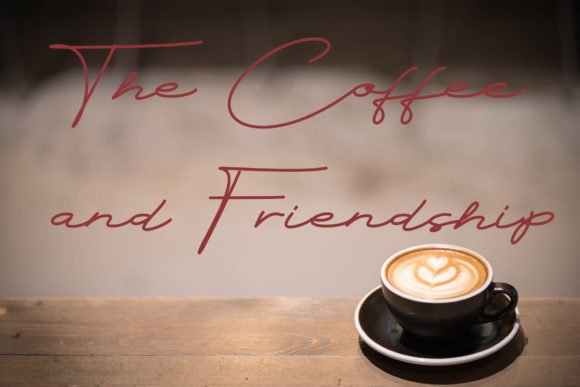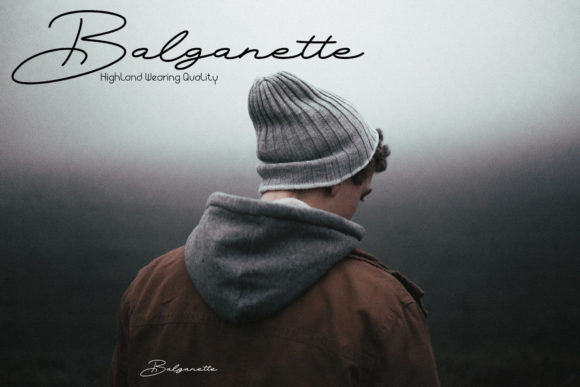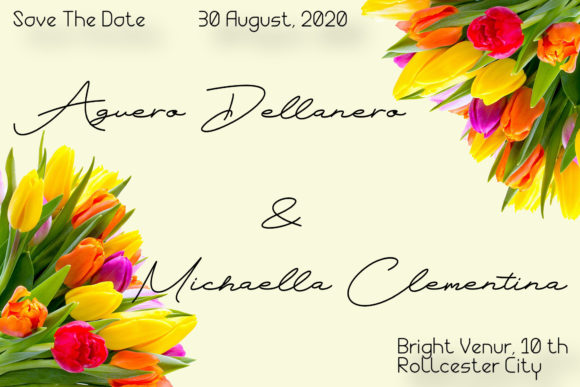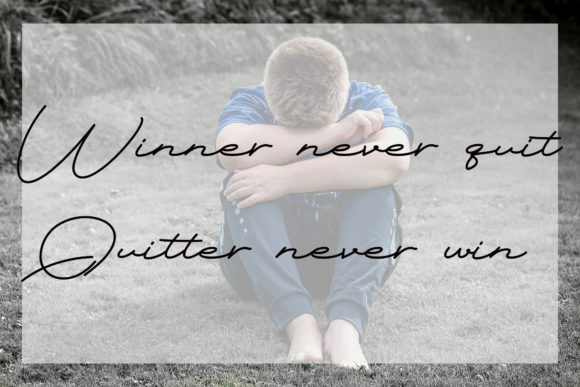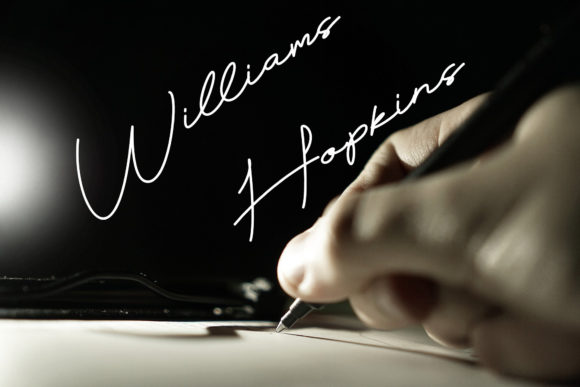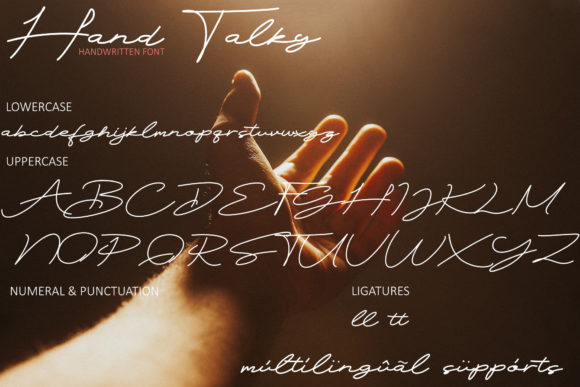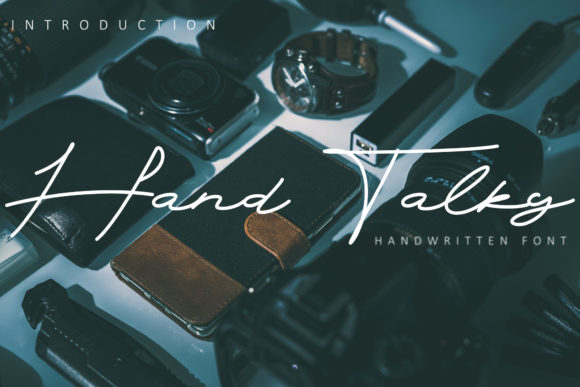
Introducing Hand Talky Font: Elevate Your Designs with Elegance
Are you on the lookout for a font that adds a touch of sophistication and elegance to your projects? Look no further than Hand Talky Font, a beautiful, flowing handwritten font that is sure to capture your heart. With its incredibly distinct and timeless style, Hand Talky Font is perfect for designers and crafters seeking to create spectacular designs that stand out from the crowd.
The Characteristics of Hand Talky Font
Hand Talky Font is described by its elegant touch, which sets it apart from other handwritten fonts. Its flowing lines and curves create a sense of movement and fluidity, making it perfect for projects that require a touch of dynamism. The font’s classic and timeless style ensures that it will remain relevant for years to come, making it a valuable addition to any designer’s font collection.
What Makes Hand Talky Font So Special?
So, what makes Hand Talky Font so special? Here are just a few reasons why designers and crafters are falling in love with this beautiful font:
- Elegant and Sophisticated: Hand Talky Font exudes elegance and sophistication, making it perfect for projects that require a high-end feel.
- Unique and Distinct: The font’s unique and distinct style sets it apart from other handwritten fonts, ensuring that your designs will stand out from the crowd.
- Timeless: Hand Talky Font’s classic style ensures that it will remain relevant for years to come, making it a valuable addition to any designer’s font collection.
- Versatile: The font is versatile and can be used for a wide range of projects, from branding and advertising to packaging and digital design.
How to Use Hand Talky Font in Your Designs
Hand Talky Font is perfect for a wide range of design projects, including:
- Branding and Advertising: Use Hand Talky Font to create elegant and sophisticated branding and advertising materials, such as logos, business cards, and brochures.
- Packaging Design: Add a touch of elegance to your packaging designs with Hand Talky Font, perfect for luxury brands and high-end products.
- Digital Design: Use Hand Talky Font in your digital designs, such as website headers, social media graphics, and email marketing campaigns.
- Crafting and DIY: Hand Talky Font is also perfect for crafters and DIY enthusiasts, who can use it to create beautiful and unique handmade projects, such as cards, invitations, and scrapbooking.
Tips and Tricks for Getting the Most Out of Hand Talky Font
Here are some tips and tricks for getting the most out of Hand Talky Font:
- Experiment with Different Sizes: Hand Talky Font looks great in a variety of sizes, so don’t be afraid to experiment and find the perfect size for your project.
- Pair with Other Fonts: Hand Talky Font pairs well with other fonts, so try pairing it with a bold font for added contrast.
- Use in Combination with Images: Hand Talky Font looks great in combination with images, so try using it to add a touch of elegance to your designs.
In conclusion, Hand Talky Font is a beautiful and elegant handwritten font that is perfect for designers and crafters seeking to create spectacular designs. With its incredibly distinct and timeless style, Hand Talky Font is sure to capture your heart and elevate your designs to the next level. So why wait? Fall in love with Hand Talky Font today and start creating stunning designs that will leave a lasting impression!